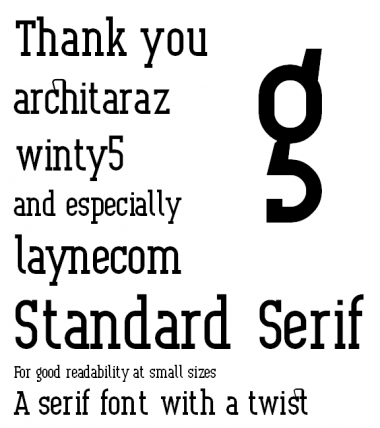
fs standard serif
laynecom
Standard Sans with added serifs.
Nice clone!
Alright. So a slab version would actually work...
Nice work! Love the g. 10/10
"architaraz" looks cool in the sample :)
Yep, it just worked out that way. :)
"winty5" looks cool too! :D